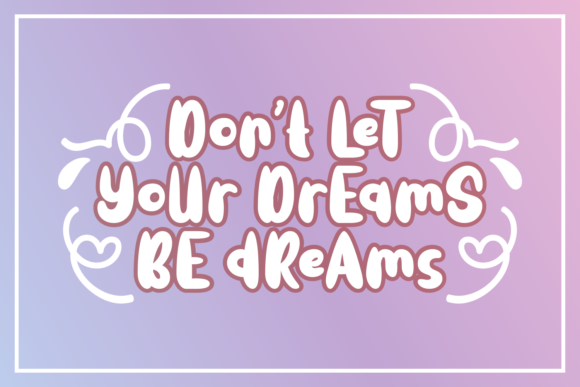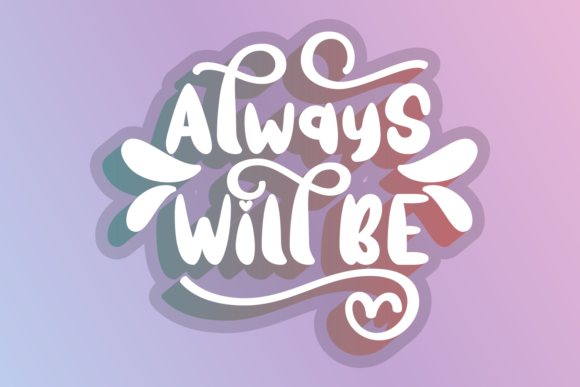
Berry Romantic Font
About Berry Romantic Font
Berry Romantic is a chubby and lovely handwritten font with an incredible twist. Get inspired by its playful charm!